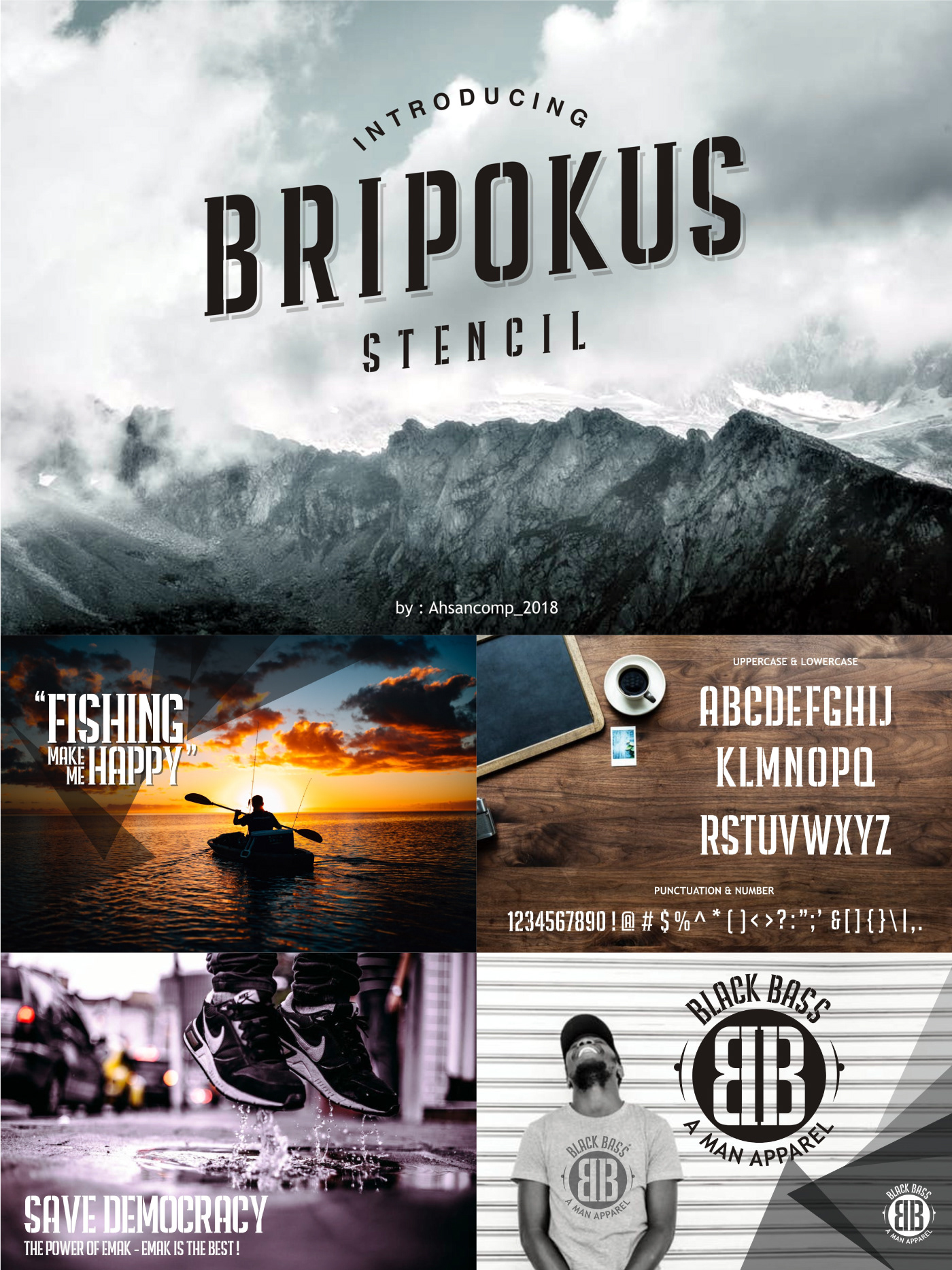
Give your typeface toolbox an elegant makeover with the Bripokus Stencil Font. Created by Ahsancomp Studio from Indonesia, the font is perfect for headlines, logos, branding and short bursts of text. Free for personal and commercial use!